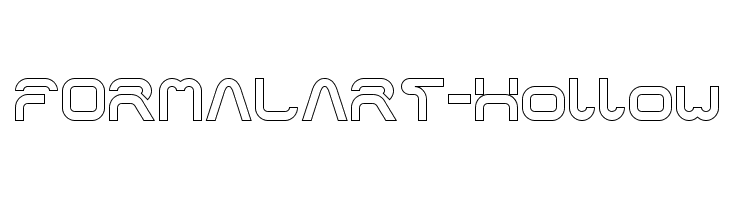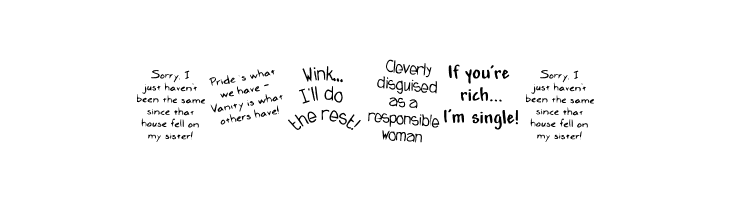
A modern, geometric font with clean lines and thin strokes.
A playful, informal handwritten font with a whimsical and relaxed style.
A playful, handwritten font with rounded edges and a friendly vibe.
A pixelated, dot-matrix style font with a retro digital appearance.
A modern, condensed, and oblique font with a ghostly outline style.
A geometric and modern font with clean lines and sharp angles.
A hand-drawn, narrow font with an artistic and rustic style.
A bold, decorative font with intricate patterns and a playful, retro-modern style.
A bold, high-contrast font with a modern and condensed style.
A bold, bubbly font with a playful and cartoonish style.